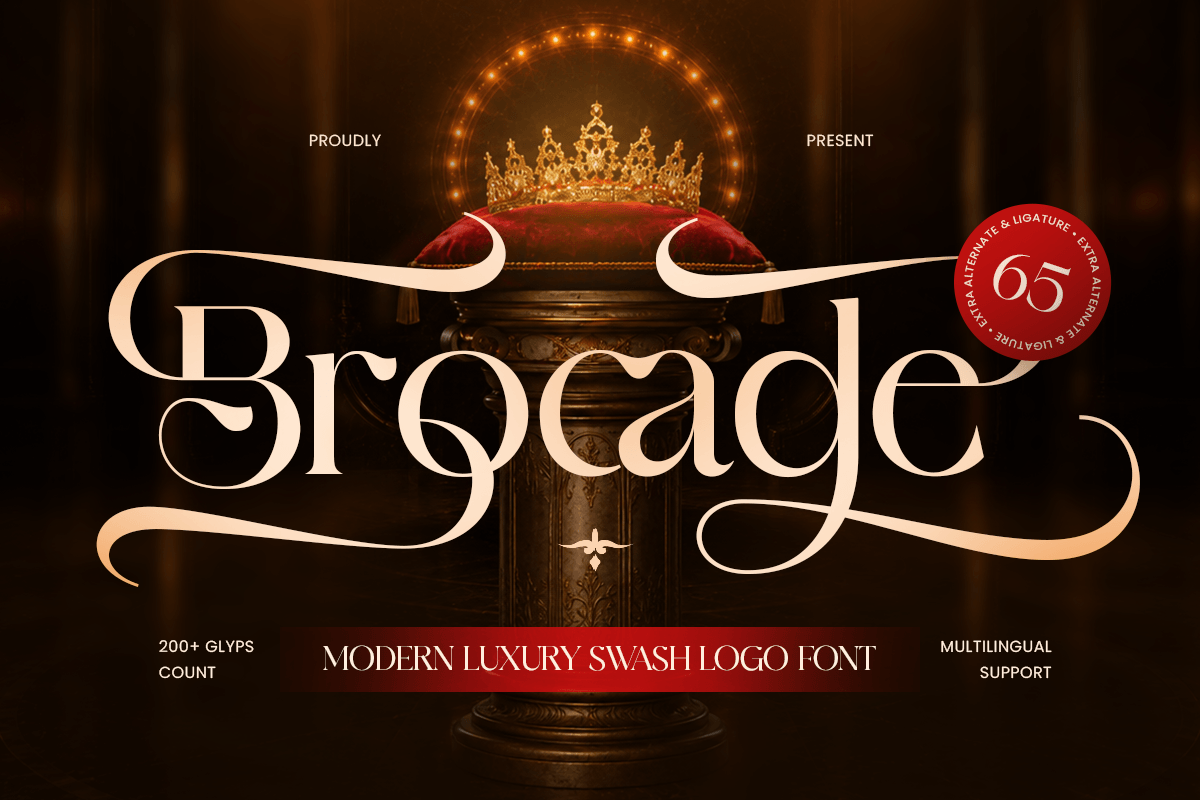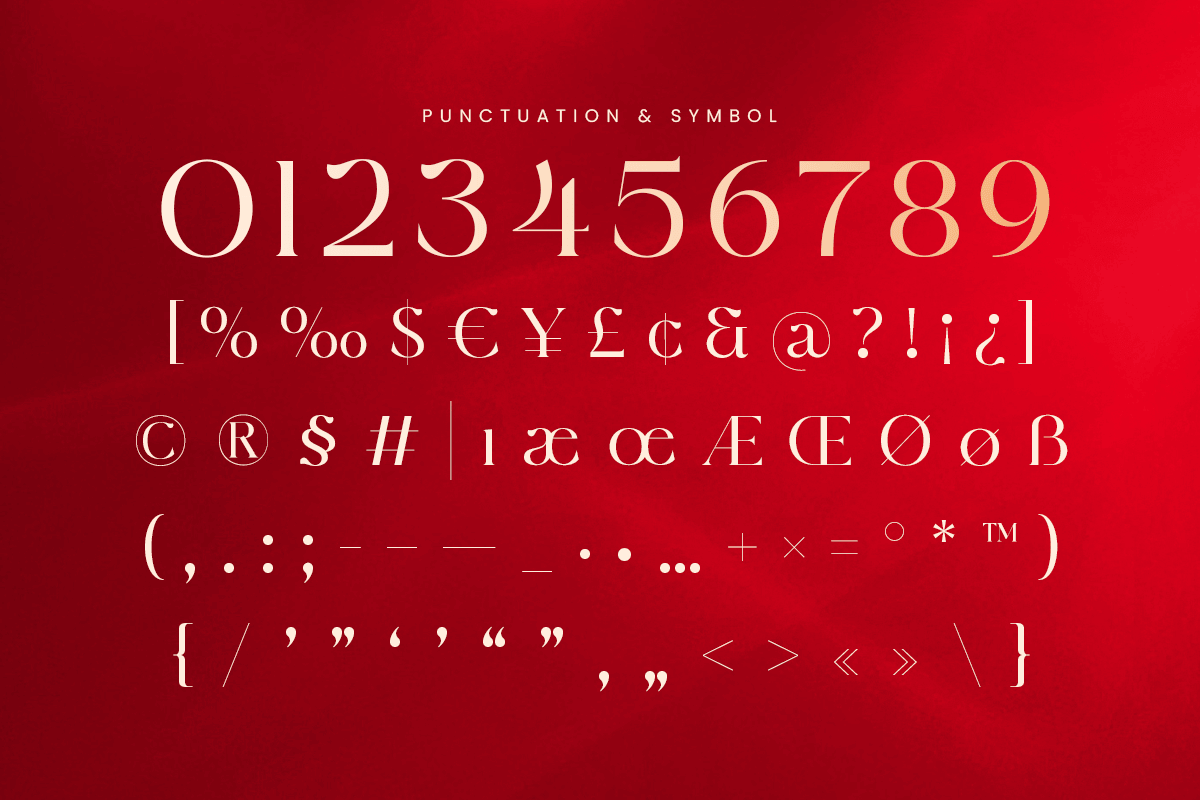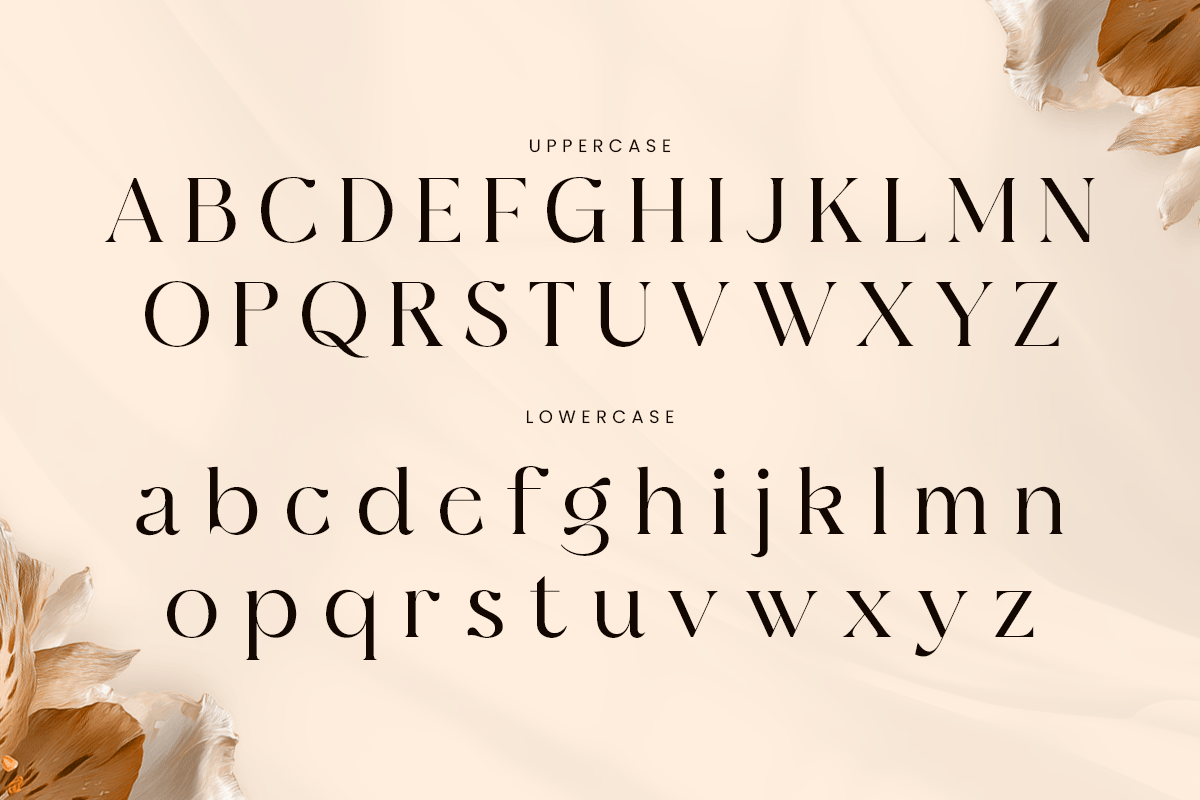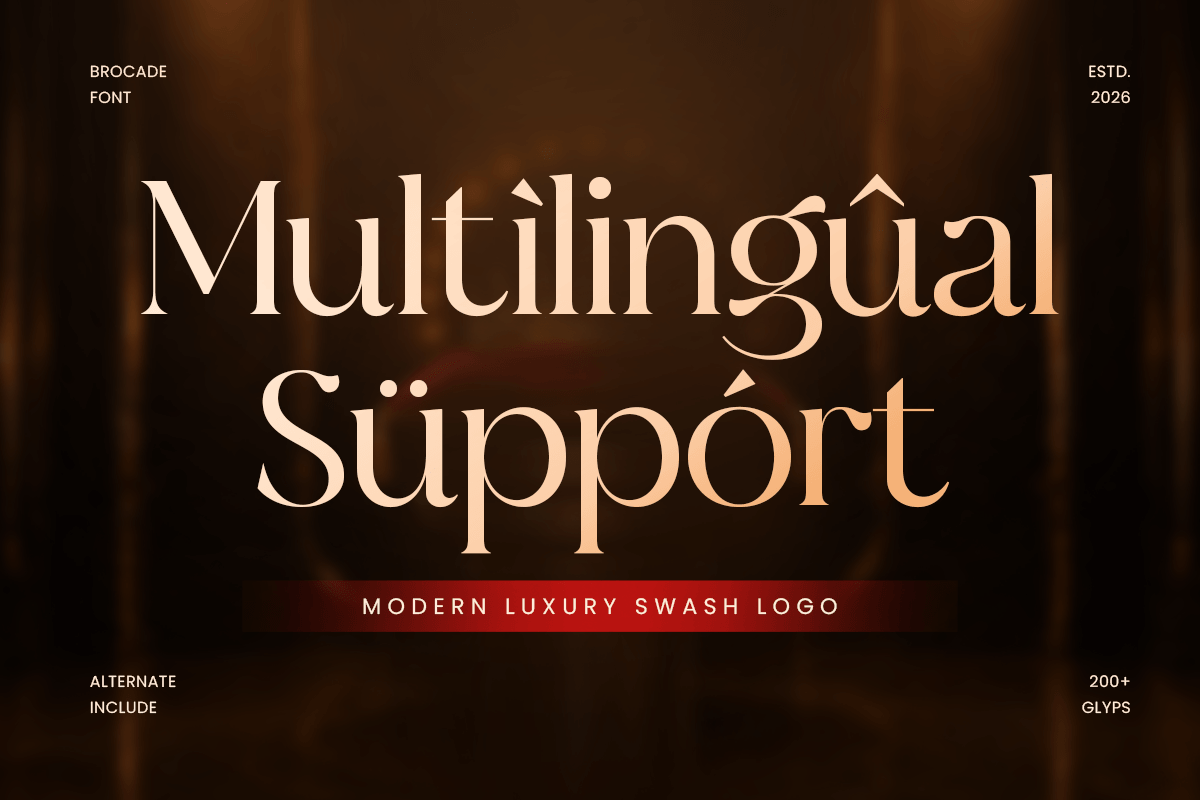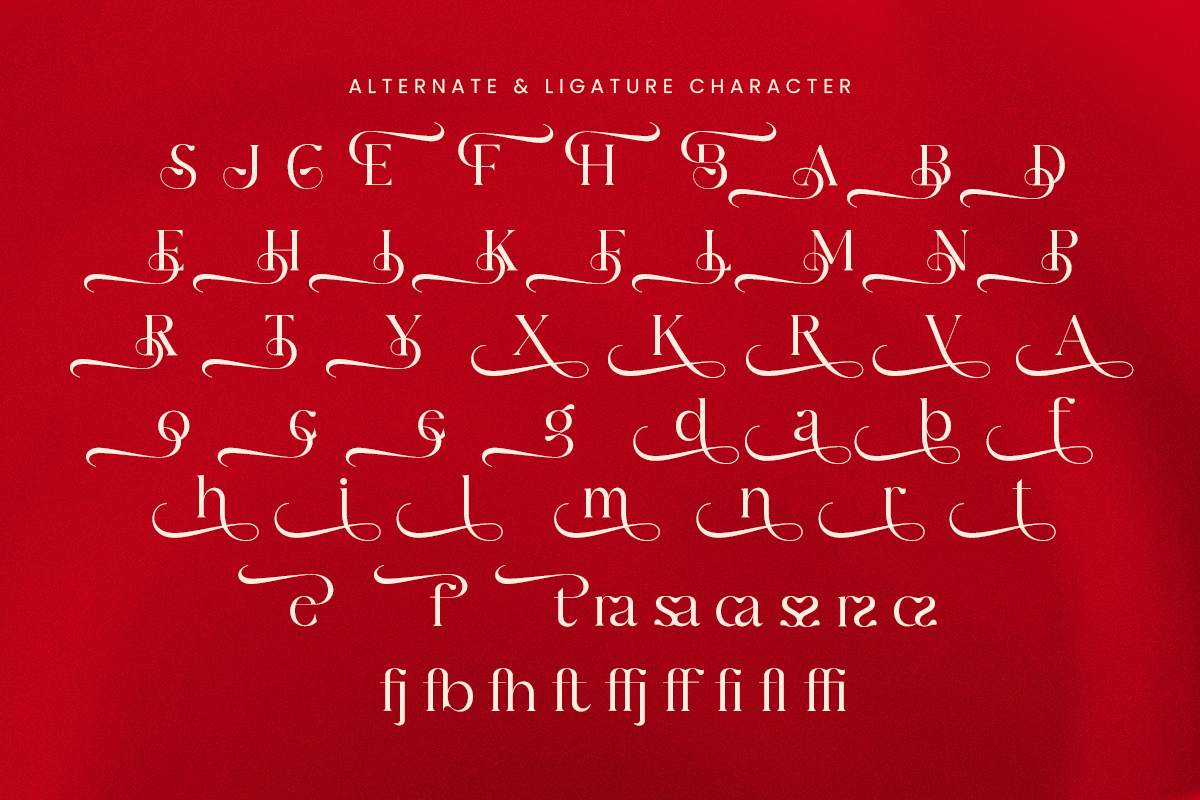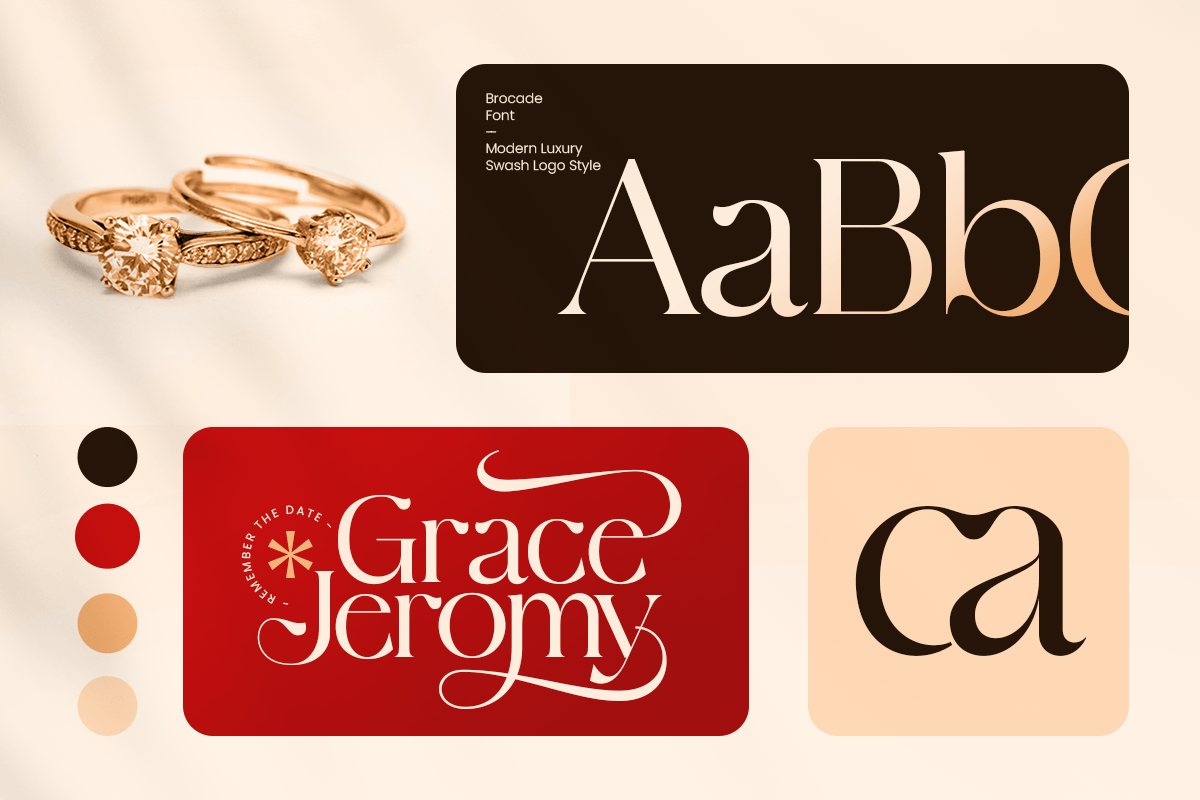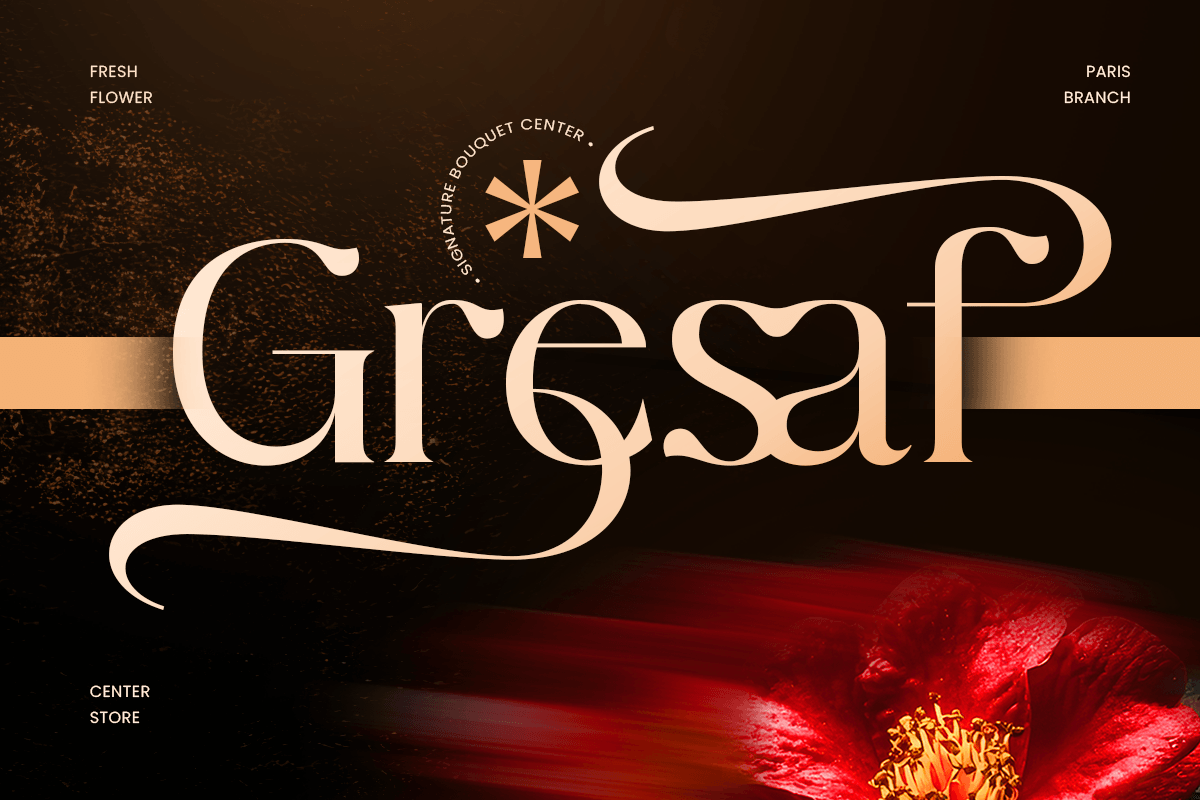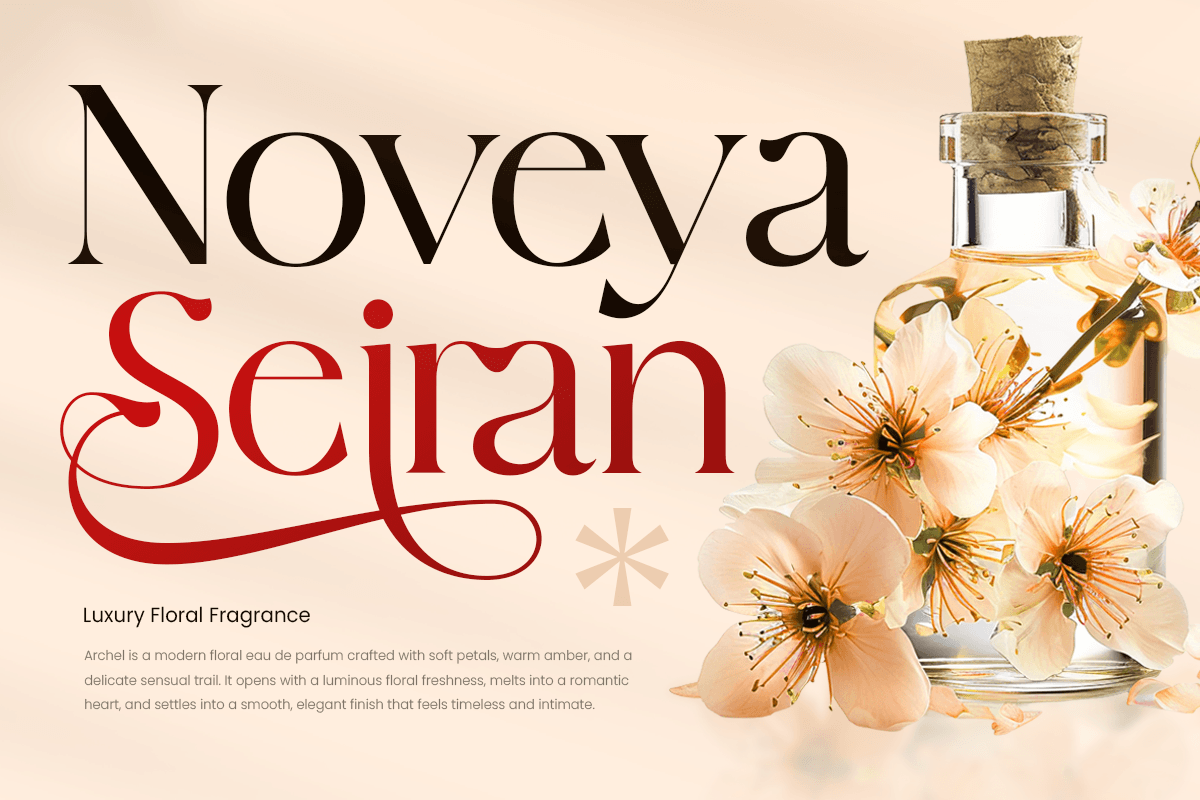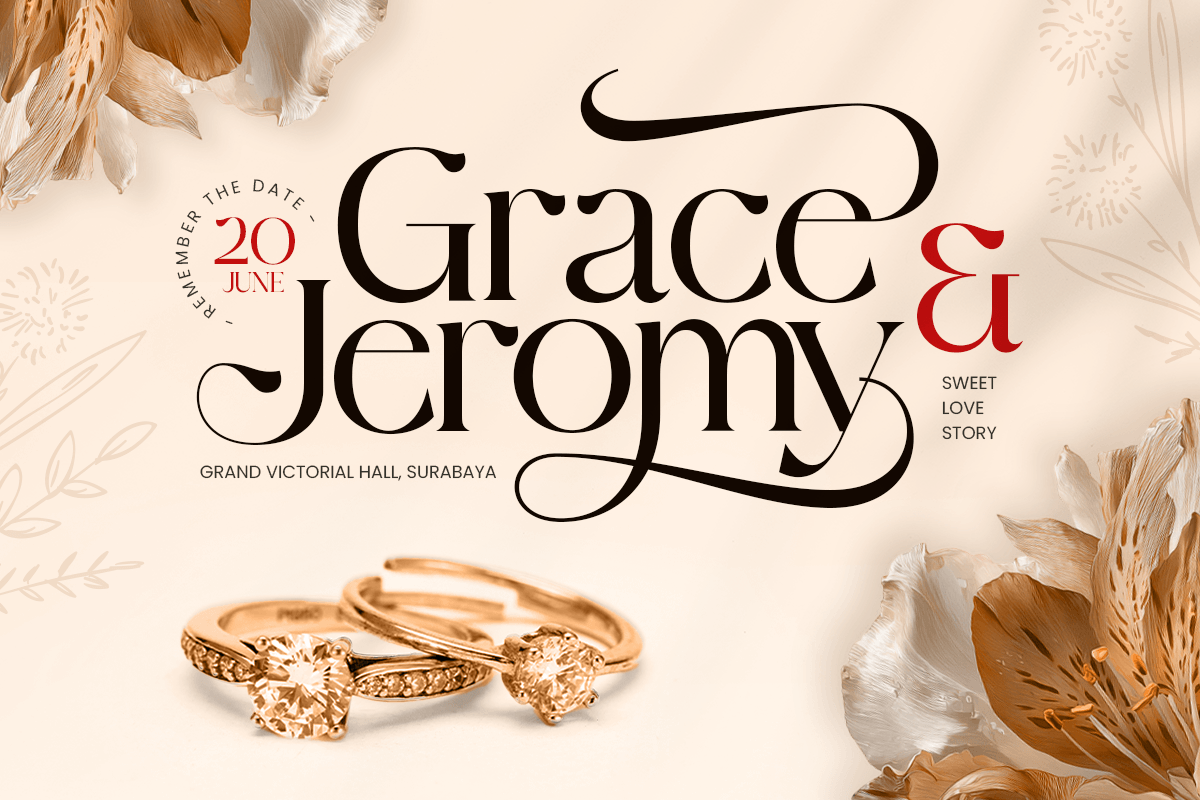
Brocade - Modern Luxury Font
BROCADE is a modern luxury font crafted to bring sophistication, elegance, and premium character to contemporary design. With refined letterforms, graceful proportions, and a polished aesthetic, BROCADE creates an upscale presence perfect for brands that value timeless style with a modern edge.
Ideal for luxury branding, logos, fashion, beauty products, perfume packaging, wedding stationery, editorial layouts, posters, headlines, signage, and social media, BROCADE delivers an elegant visual identity across both digital and print applications. Its sophisticated personality makes it especially suitable for boutiques, cosmetics, jewelry, hospitality, and premium lifestyle brands.
Whether you're developing a high-end logo, sophisticated packaging, magazine headline, or exclusive campaign, BROCADE offers the distinctive character of a modern luxury font while remaining versatile and visually refined.
BROCADE – Modern Luxury Features
- Refined letterforms with a premium luxury aesthetic
- Modern elegance with sophisticated visual character
- Ideal for luxury logos, branding, and visual identities
- Perfect for fashion, beauty, perfume, and wedding designs
- Includes uppercase, lowercase, numerals, and punctuation
- Great for packaging, editorial, social media, and print
- OpenType features for creative typographic flexibility
Multilingual Support